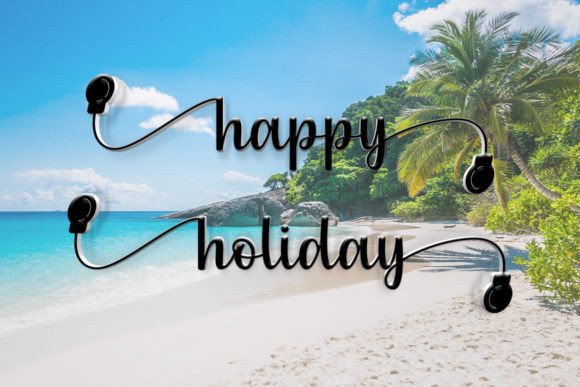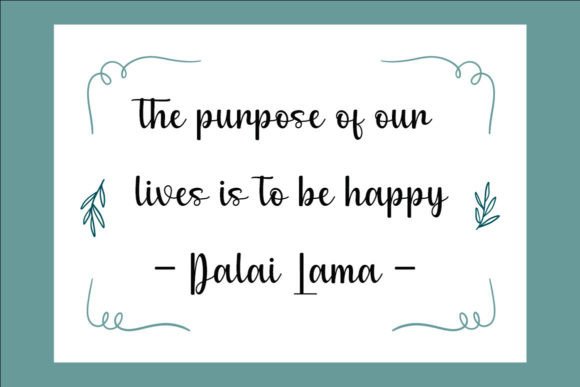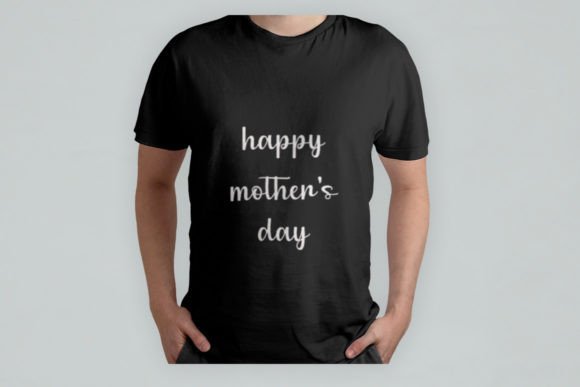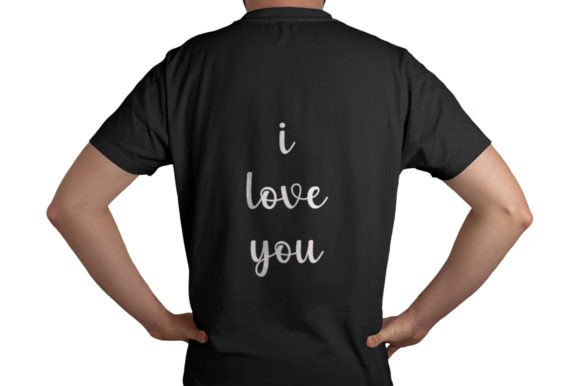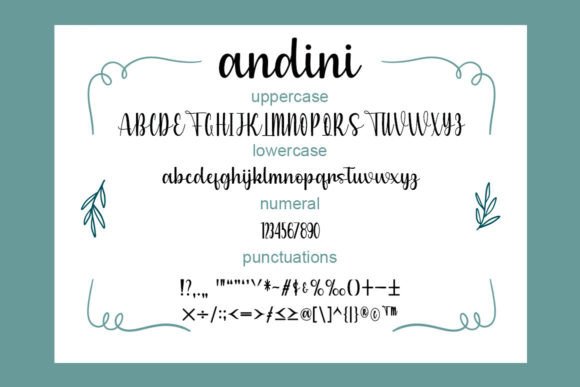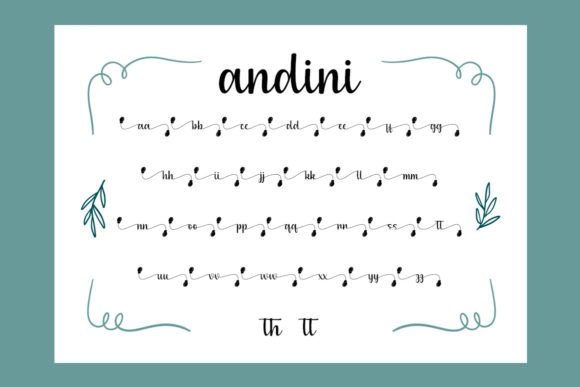
Introducing Andini Font: The Enchanting Script Font for Creative Projects
Are you looking for a font that can add a touch of elegance and sophistication to your creative projects? Look no further than Andini Font, an enchanting script font that is perfect for a wide range of applications, from logos and branding to quotes, clothing, tote bags, business cards, websites, and more.
What Makes Andini Font So Special?
Andini Font is a beautifully designed script font that is sure to capture the hearts of designers and crafters alike. Its elegant and flowing lines make it perfect for creating stunning visual content that stands out from the crowd. Whether you’re looking to create a professional logo, a stylish website, or a unique piece of clothing, Andini Font is the perfect choice.
One of the best things about Andini Font is its versatility. It’s perfect for a wide range of projects, including:
- Logos and branding: Create a professional and memorable logo that represents your brand with Andini Font.
- Quotes and posters: Add a touch of elegance to your quotes and posters with Andini Font.
- Clothing and tote bags: Create unique and stylish clothing and tote bags with Andini Font.
- Business cards: Stand out from the crowd with beautifully designed business cards featuring Andini Font.
- Websites: Add a touch of sophistication to your website with Andini Font.
Andini Font is PUA encoded, which means that you can access all the glyphs and ligatures with ease. This makes it easy to create stunning visual content without having to worry about complicated font editing.
Why Choose Andini Font?
So why choose Andini Font over other fonts? Here are just a few reasons:
- Unique and elegant design: Andini Font has a unique and elegant design that is sure to capture the hearts of designers and crafters alike.
- Versatility: Andini Font is perfect for a wide range of projects, from logos and branding to quotes, clothing, tote bags, business cards, websites, and more.
- Easy to use: Andini Font is PUA encoded, making it easy to access all the glyphs and ligatures.
- High-quality: Andini Font is a high-quality font that is designed to deliver stunning results.
Tips for Using Andini Font
Here are a few tips for using Andini Font:
- Use it sparingly: Andini Font is a elegant and sophisticated font, so use it sparingly to add a touch of elegance to your projects.
- Experiment with different sizes: Andini Font looks great in a variety of sizes, so experiment with different sizes to find the one that works best for your project.
- Pair it with other fonts: Andini Font pairs well with other fonts, so don’t be afraid to experiment with different font combinations.
In conclusion, Andini Font is an enchanting script font that is perfect for a wide range of creative projects. Its elegant and flowing lines make it perfect for creating stunning visual content that stands out from the crowd. With its PUA encoding and high-quality design, Andini Font is a must-have for designers and crafters alike. So why wait? Fall in love with Andini Font and let it take your projects to the highest level!
Whether you’re a professional designer or a crafter looking for a unique font for your next project, Andini Font is the perfect choice. So go ahead, give it a try, and see the magic for yourself!